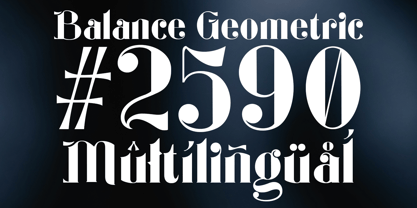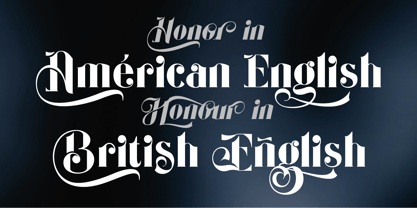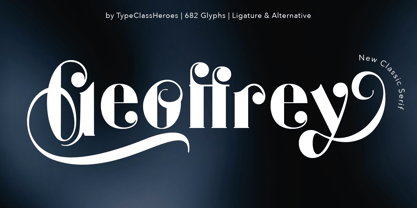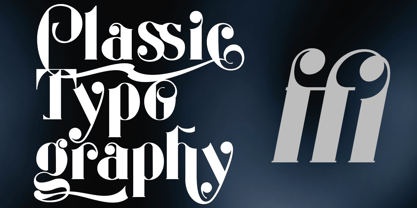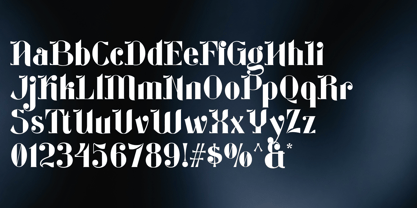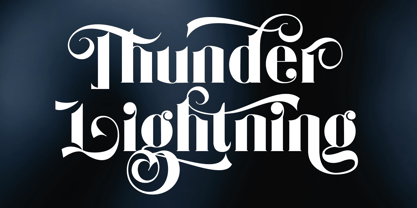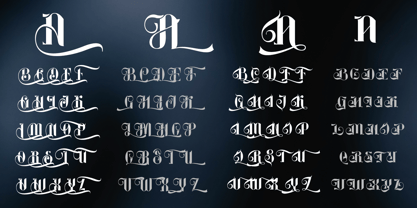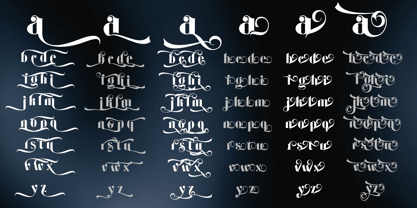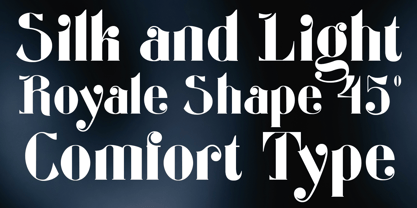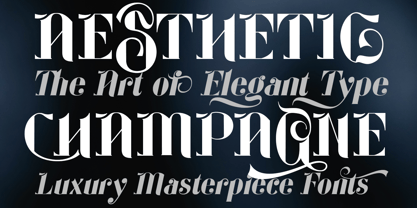
Geoffrey
by TypeClassHeroes
The Geoffrey Font Family was designed by Suandana ipandemade and published by TypeClassHeroes. Geoffrey contains 2 styles and family package options. More about this family
Introducing Geoffrey Font, a stunning decorative display typeface that artfully blends classic typography with ornamental Serif. This design highlights the elegance of its letterforms, making it an exceptional choice for identity and title applications. Ideal for premium logos and brand identities, Geoffrey Font excels in creating striking poster titles, captivating album or book covers, and luxurious packaging designs. With its unique style and versatility, this font is perfect for any project that demands a touch of sophistication and visual impact.